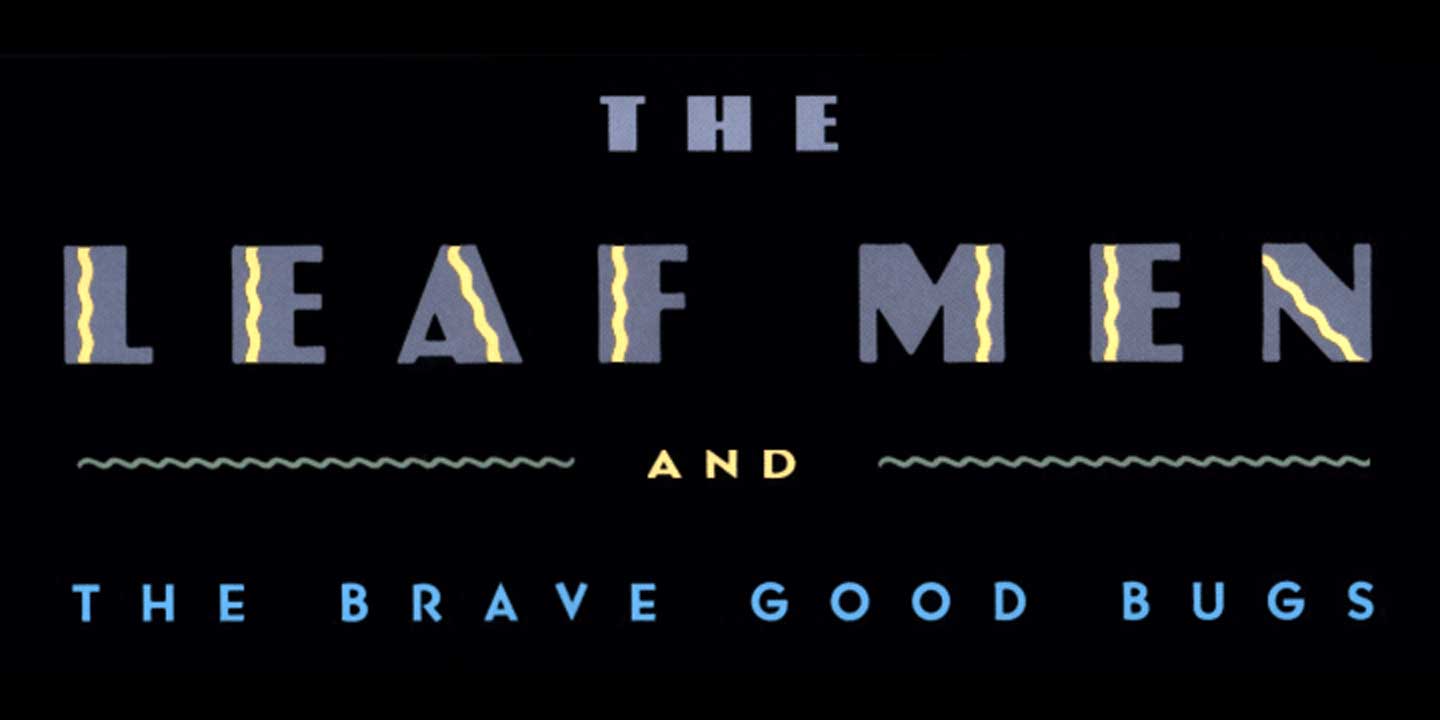
Zamenhof™ is a family of five fonts that can be used singly or in combination to create a variety of bold, yet elegant, display styles. Inspired by Russian hand-lettering that appears to have been based on Jakob Erbar's Phosphor, Zamenhof is essentially a Latin interpretation of a Cyrillic interpretation of a Latin type design, with many subtle improvements along the way.